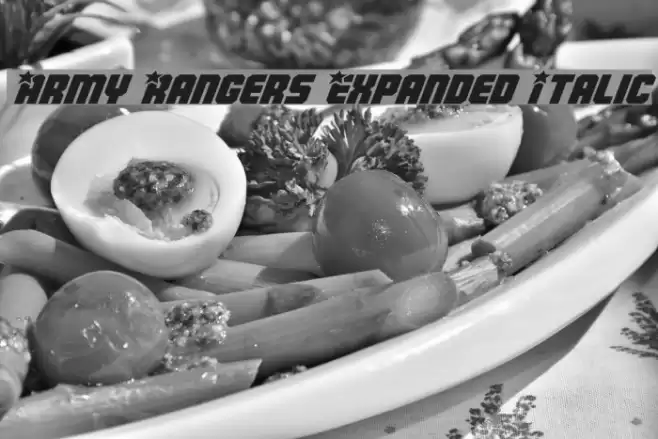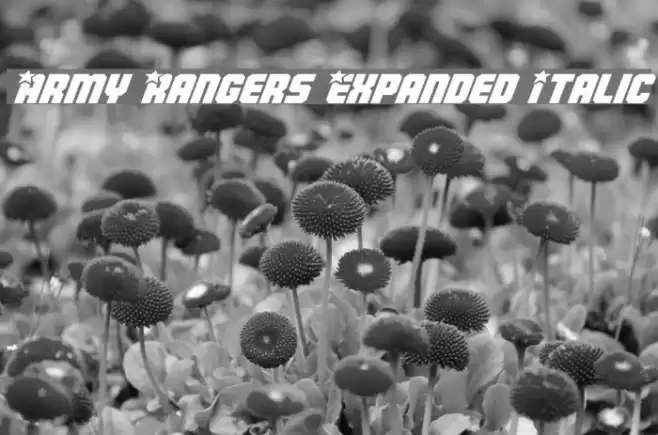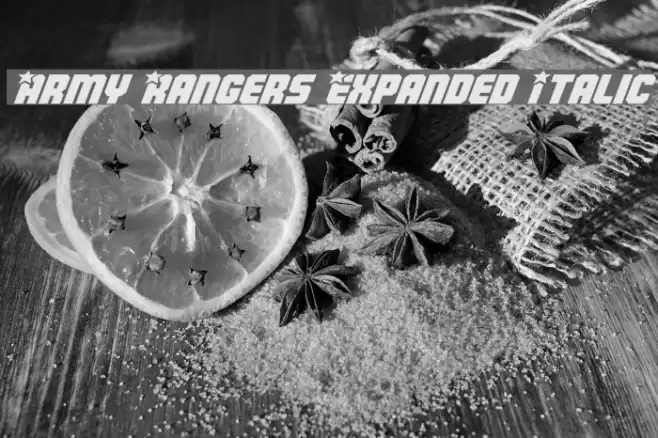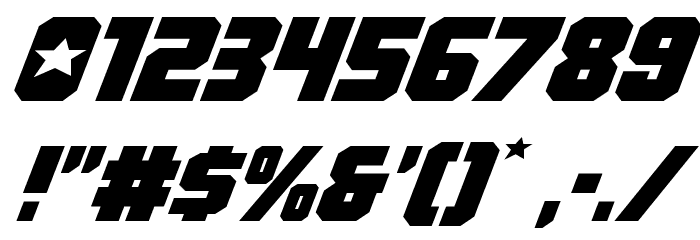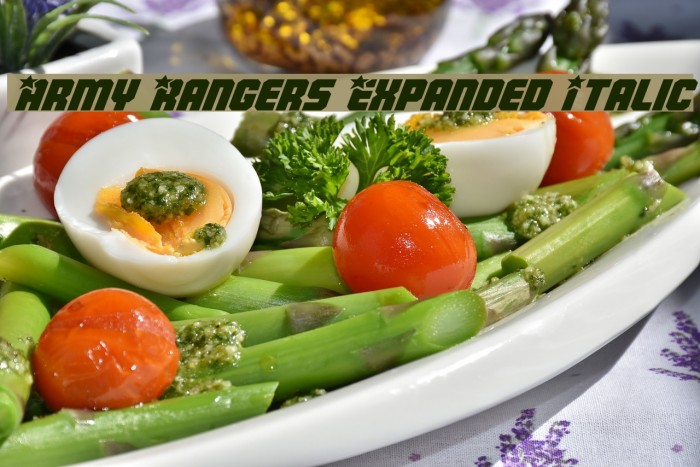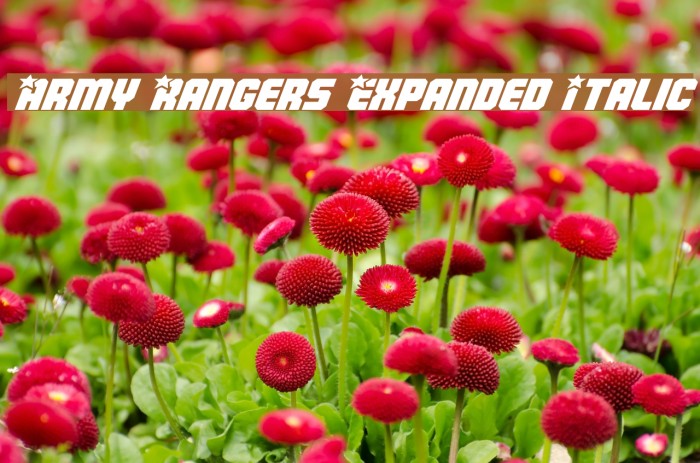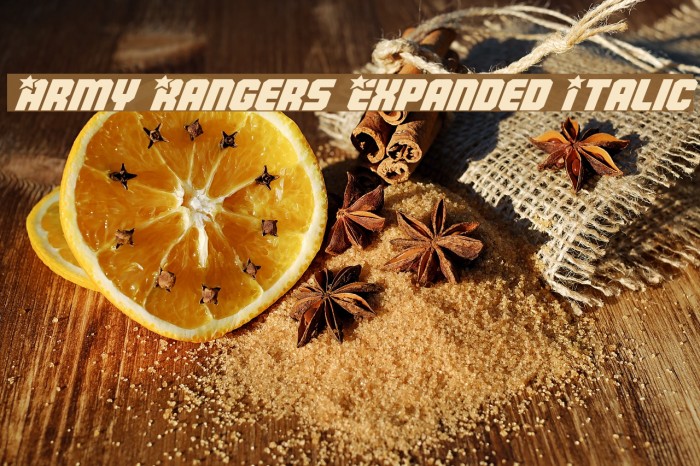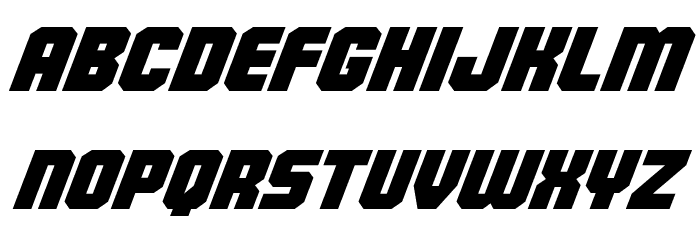
Army Rangers Expanded Italic Font
Army Rangers Expanded Italic Description
This font features a bold, dynamic style with a military-inspired aesthetic. Each character is designed with sharp, angular lines and a star motif integrated into the uppercase letters, giving it a distinct and commanding presence. The italicized slant adds a sense of motion and urgency, while the expanded width provides a robust and impactful appearance. The numbers and special characters maintain the same boldness and angular design, ensuring consistency across all elements. This font is ideal for projects that require a strong, authoritative look, such as military-themed designs, action-oriented branding, or any context where a powerful visual impact is desired.
A bold, italicized font with a military-inspired, star-accented design from Uncategorized fonts.
- Proposed Projects: Ideal for military-themed designs, action branding, posters, and impactful headlines.